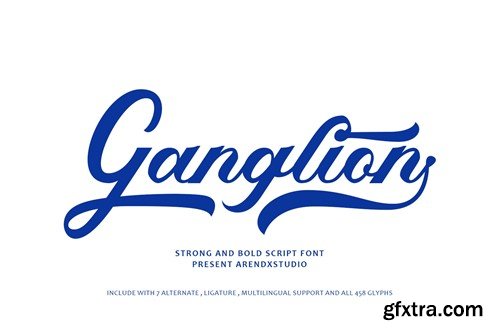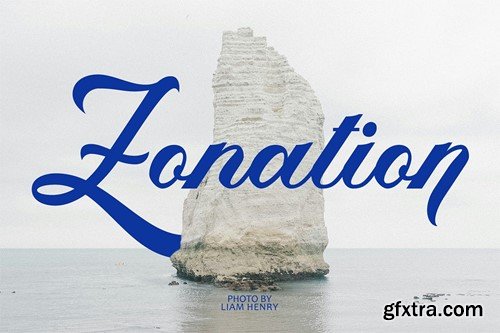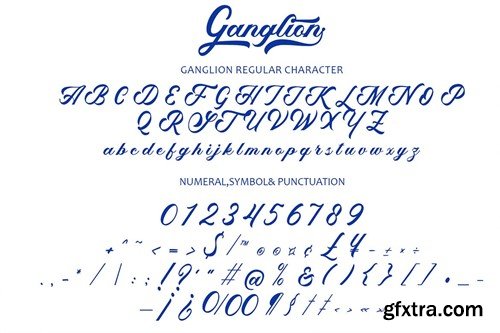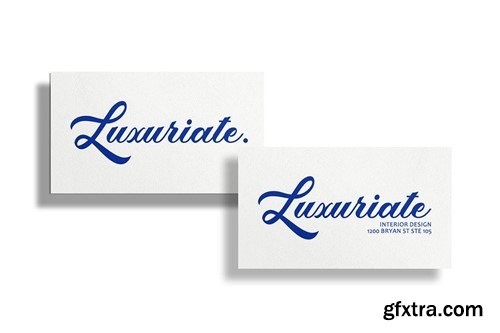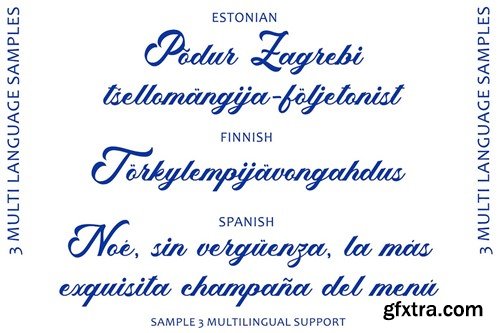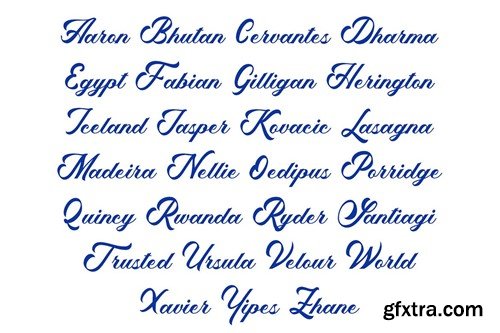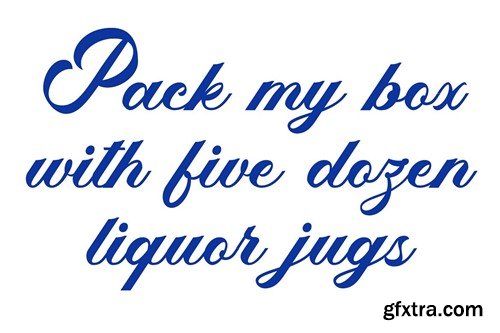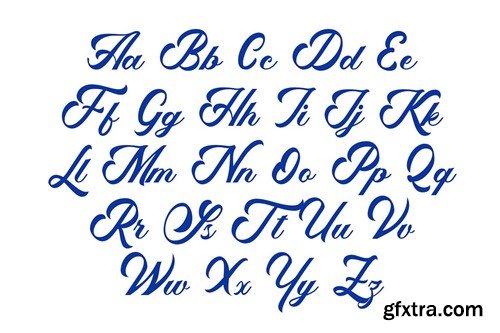
掌腱膜囊Font GP2AJRF
"Ganglion Font" is a robust and commanding script typeface that exudes strength and boldness, making it a standout choice for various design applications. Here's an explanation of its key features: Powerful Presence: With its strong and bold letterforms, "Ganglion Font" commands attention and makes a powerful statement. The font's assertive script style conveys confidence and authority, making it ideal for impactful headlines, logos, and branding materials. Solid Construction: "Ganglion Font" is crafted with solid construction and sturdy lines, giving it a sense of stability and reliability. The font's bold strokes and well-defined shapes make it highly visible and legible, even at smaller sizes or from a distance. Distinctive Character: Despite its bold appearance, "Ganglion Font" possesses a distinctive character that sets it apart from other script typefaces. Its strong lines and sharp angles give it a modern edge, making it suitable for contemporary design projects that require a bold and dynamic typography. Versatility: While "Ganglion Font" is bold and impactful, it remains versatile and adaptable to various design contexts. Whether used for advertising, packaging, posters, or branding, the font adds a sense of strength and determination to any project. Expressive Typography: "Ganglion Font" allows designers to convey emotion, personality, and style through typography. Its bold and expressive letterforms can evoke feelings of confidence, energy, and power, making it a versatile choice for expressive and impactful designs. what you get : 1.file format .OTF 2.file format .TTF 3.file format .woff + .woff2 Feature Font : 1.Upercase & lowercase 2.Numeral Character 3.Symbol + Punctuation 4.Multilingual Support 5.stylistic set (.ss01-ss07) 6.Ligature Feature Overall, "Ganglion Font" is a strong and bold script typeface that commands attention and makes a bold statement in any design project. Its powerful presence, solid construction, and distinctive character make it an excellent choice for designers seeking to add strength and boldness to their typography.